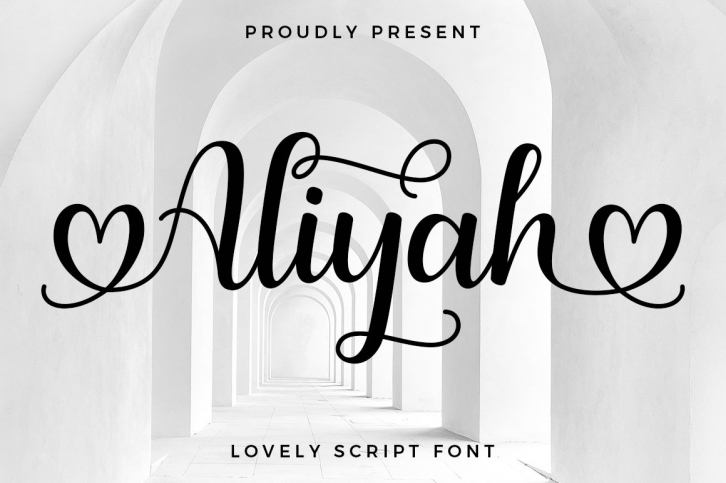
Aliyah Lovely Script FONT Download
Aliyah Lovely Script Font Download
Aliyah Lovely Script is a gorgeous font that was realeased on August 12, 2021. The font can be used in many style contexts and design environments. Perfect for invitations, magazines, websites, logos, and more! It was designed by Typesthetic Studio and the file size is 9.37 MB. Thanks for checking out this font!